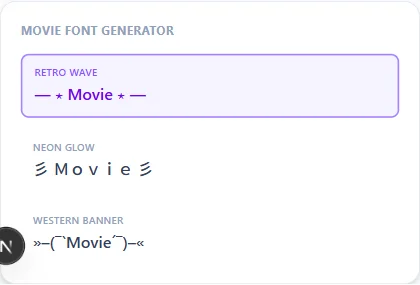
Movie Font Generator
"Movie font" is another vibe search rather than one specific typeface — the neon-drenched retro look a lot of streaming thumbnails lean on, or the punchier lettering from a trailer's on-screen text. This page groups together a handful of styles built around that range instead of picking one: Retro Wave and Neon Glow both lean into the glowing, VHS-poster look, Western Banner adds an old-marquee frame, and Thunder Bold Italic gives a punchier, trailer-caption feel.
Movie Font Generator style examples: Retro Wave, Neon Glow, Western Banner, rendered on the word "Movie"
Why this page lists several styles instead of one "movie font"
Movies don't share a single typographic identity the way a platform like Discord does — a horror poster, a Western, and a sci-fi trailer all use different lettering conventions. This page reflects that by offering a handful of genre-adjacent looks rather than one style claiming to represent "movies" broadly.
Picking a style for a poster caption vs. a trailer-style line
Retro Wave and Neon Glow both suit a poster-style caption with some visual flair. Western Banner works best for a short, marquee-style line. Thunder Bold Italic reads punchier and shorter, closer to a trailer's on-screen text than a full poster tagline.
Is there one official "movie font"?
No — this page groups a small set of cinema-adjacent Unicode styles rather than claiming one definitive "movie font," since different genres and eras use very different lettering conventions.
Which style works best for a movie review caption?
Retro Wave or Neon Glow both read well for a short review or reaction caption; Thunder Bold Italic suits an even shorter, punchier line.
Do these replicate a specific film's title font?
No — these are general cinematic-styled Unicode text, not a copy of any particular movie's logo or title treatment.